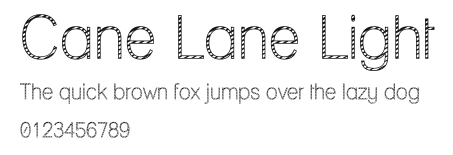
• Font Name: Cane Lane Light
• Full Font Name: Cane Lane Light
Cane Lane Light.ttf is a modern, elegant sans-serif font designed for ultimate readability and visual harmony. Perfect for branding, headlines, web design, and print materials.